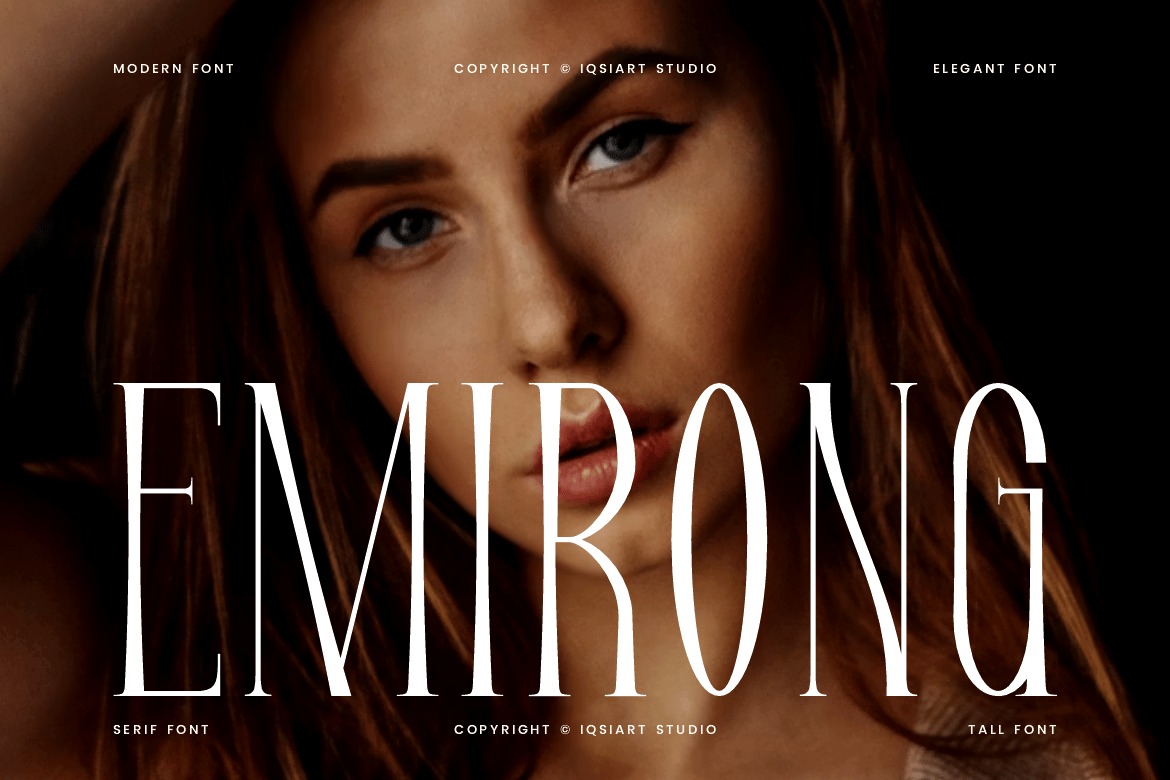
Emirong – Condensed Serif Font
Emirong – Condensed Serif Font is a clean and thoughtfully built typeface that works seamlessly for both professional branding and everyday creative uses. Emirong Font is a serif and authentic display typeface that suits a variety of design needs. We offer a wide range of themes and font styles — visit our profile to explore more and find the perfect style for your project.